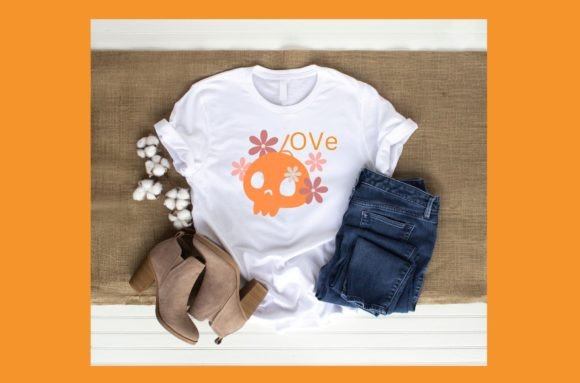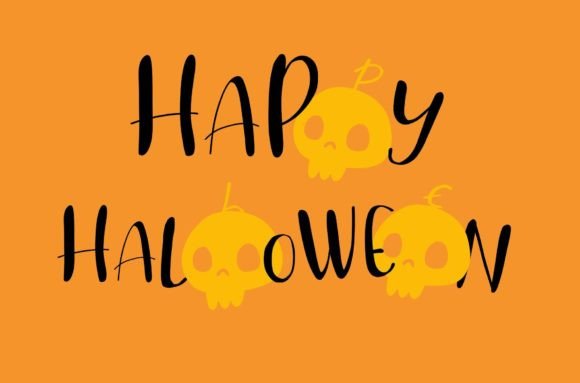
Introduction to Halloween Skull Font
Halloween skull is handwritten font : logos, branding, wedding invitations, business cards, greeting cards, posters, magazines, social media, planner prints and websites.
It is especially useful for children’s designs, t-shirts, mugs, posters, and more Add this font to your favorite creative ideas and notice how it makes them come alive.